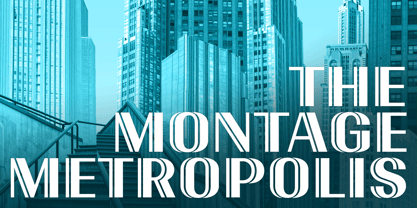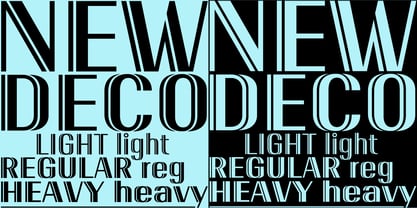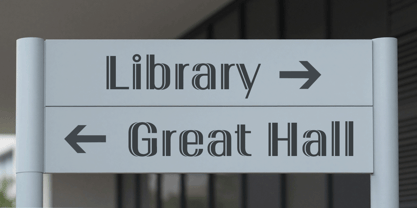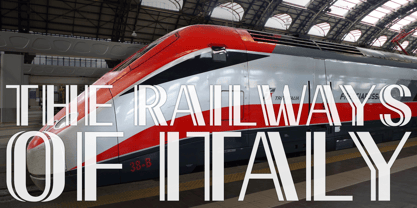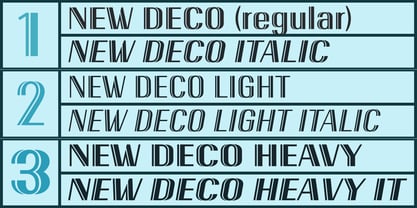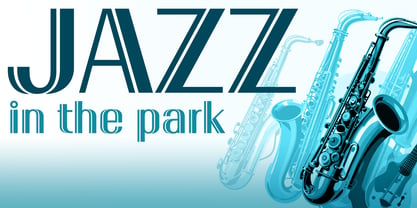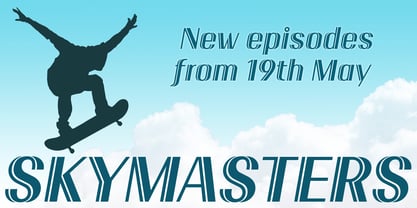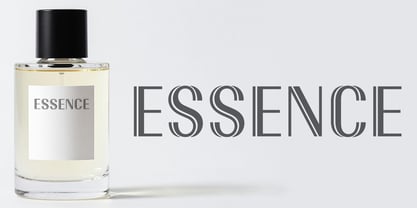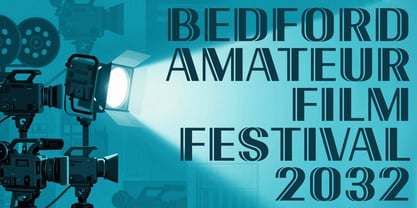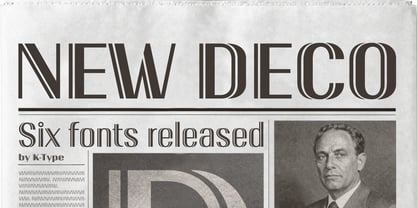
New Deco
by K-Type
The New Deco Font Family was designed by Keith Bates and published by K-Type. New Deco contains 6 styles and family package options. More about this family
New Deco is an inline display typeface in three weights, each with a corresponding italic. While its inline structure hints at Deco-era lettering, its condensed sans styling and clean workmanlike sensibility, offer a more functional, contemporary voice. The fonts are eye-catching and fashionable without being overly decorative. The New Deco family is ideal for advertising, branding, packaging, brochures, posters and editorial headlines – any display setting that calls for originality, clarity and a touch of machine-age sophistication.
Designers: Keith Bates
Foundry: K-Type